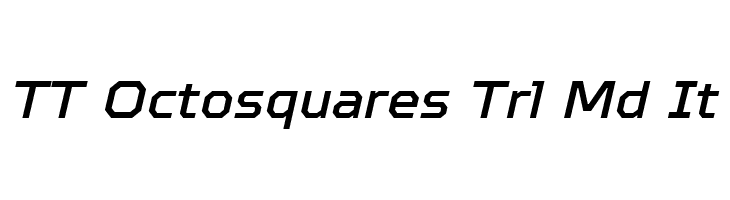
A modern, geometric font with angular, italicized characters.
A geometric, octagonal typeface with a modern, technical look.
A geometric, grid-based font with a modern, technical look.
A geometric, angular font with octagonal shapes and a modern slant.
A bold, geometric font with a modern, angular design.
A bold, angular, and slightly italicized font with a modern geometric style.
A geometric, modern font with octagonal shapes and a technical aesthetic.
A geometric, angular font with a modern, italicized style.